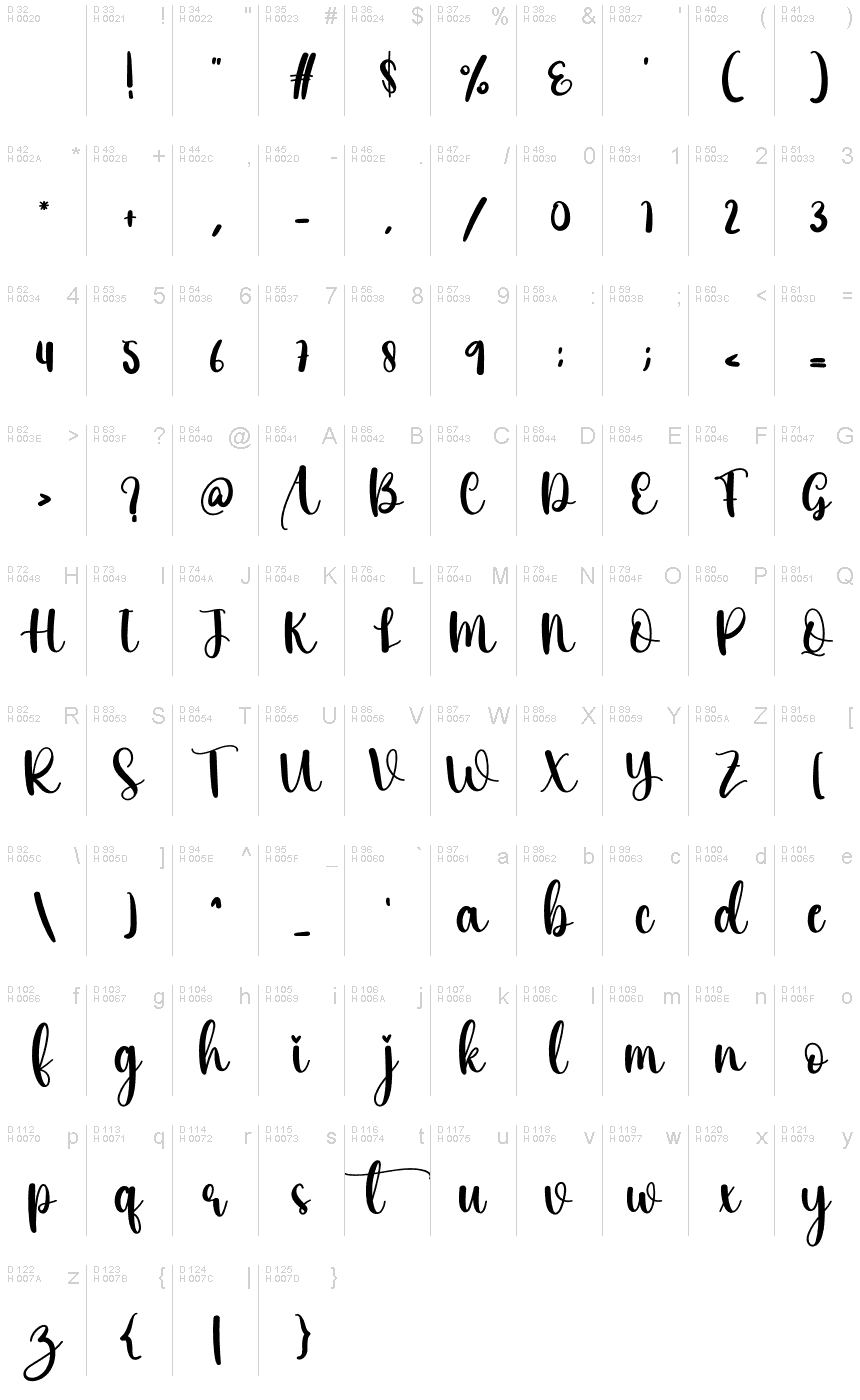
Ashellin
Ashellin, the adorable handwritten font by scratchones, is the perfect choice for any project in need of a playful and whimsical touch. With its calligraphic influence and charming style, this semi-bold typeface adds personality to any design. Its wide range of widths makes it ideal for everything from social media graphics to invitations. Whether you're creating a children's book cover or a greeting card, Ashellin will bring a sweet and delightful feel to your project.
the latest style letters are perfect for wall displays, wedding invitations, social media post logos, advertisements, product packaging, product designs, labels, photography, watermarks, invitations, stationery, and any project that requires taste handwriting.